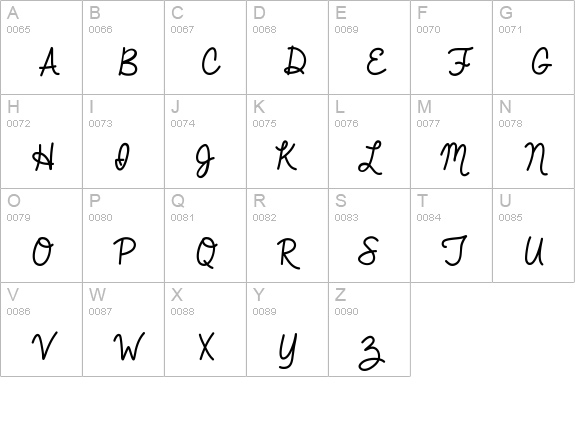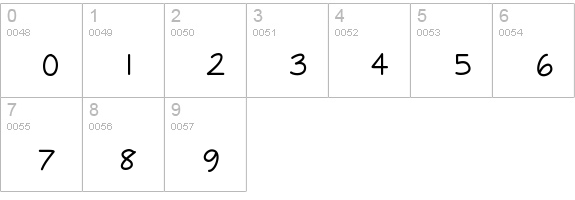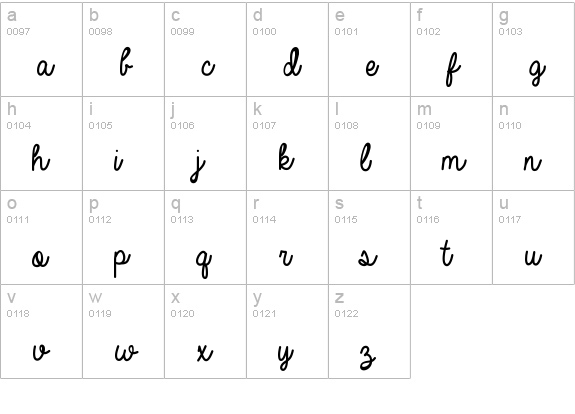
foreverInMyHeart Font Details
Introducing foreverInMyHeart font, a beautifully crafted typeface that will captivate your heart and leave a lasting impression on any design project. This exquisite font embodies a sense of elegance, grace, and timeless beauty, making it the perfect choice for wedding invitations, heartfelt messages, and sentimental designs. ForeverInMyHeart font features delicate curves and intricate details that add a touch of sophistication to any text. Its flowing lines and gentle strokes create a harmonious balance, evoking a sense of warmth and love. Whether used for personal projects or professional designs, this font will effortlessly elevate your work to new heights. One of the most remarkable aspects of foreverInMyHeart font is that it is freely available to download at FontsMarket.com. This means that you can easily access this extraordinary font without any cost, making it an invaluable asset for both seasoned designers and aspiring creatives. With just a few clicks, you can bring an air of romance and sentimental charm to your projects, without breaking the bank. The versatility of foreverInMyHeart font knows no bounds. Its timeless appeal and gentle aura make it suitable for a wide range of applications. Use it to create stunning wedding invitations that will leave a lasting impression on your guests. Add a touch of elegance to your business cards, logos, or branding materials. Or simply use it to infuse your personal messages with heartfelt emotion and tenderness. With foreverInMyHeart font, your designs will speak volumes, conveying emotions that words alone cannot express. Its beauty and grace will resonate with your audience, leaving a lasting impression that lingers in their hearts. Embrace the power of this exquisite font and let it be the key to unlocking the true essence of your artistic vision. Download foreverInMyHeart font today, for free, at FontsMarket.com, and embark on a journey of creativity and emotion. Let this font become a cherished companion, forever etching its mark in your heart and the hearts of those who encounter your designs.